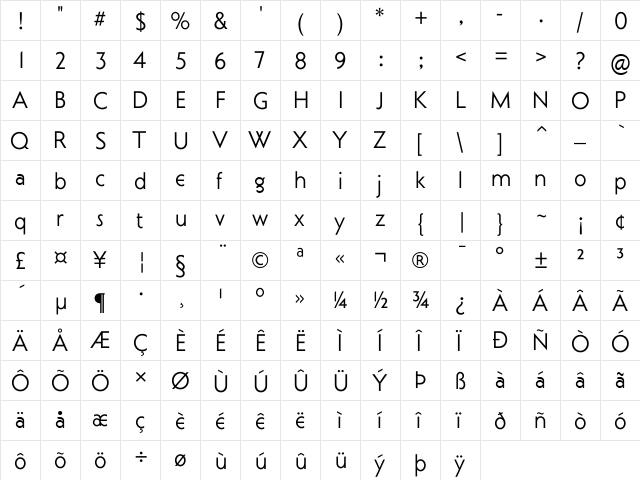
Curwen Sans Regular
| Designer | Harold Curwen & Keith Bates |
| Copyright | Curwen Sans 018 https://www.k-type.com Curwen Sans is a monoline sans-serif dating from the early twentieth century, a contemporary of Johnston Underground and Gill Sans created solely for use at the Curwen Press in London. |
Design Context for Curwen Sans Typeface
Curwen Sans offers clean, dependable letterforms without strong stylistic allegiance, making it a practical choice for designers who need flexibility.